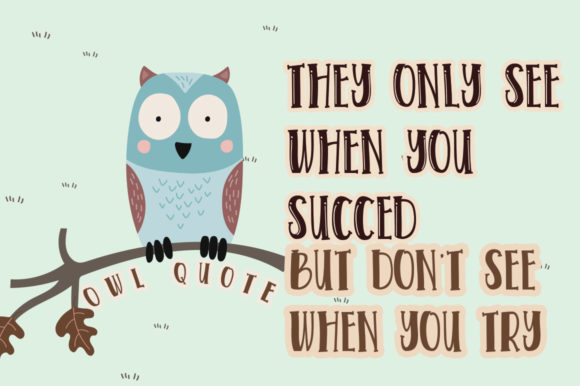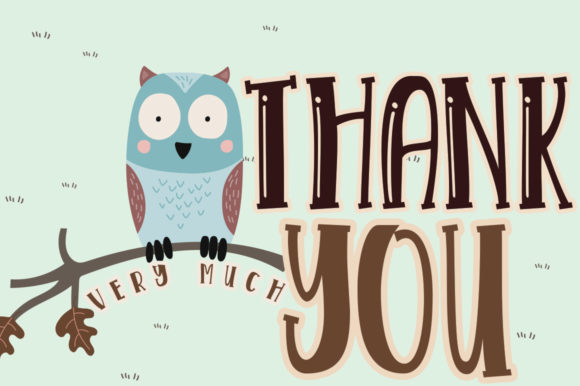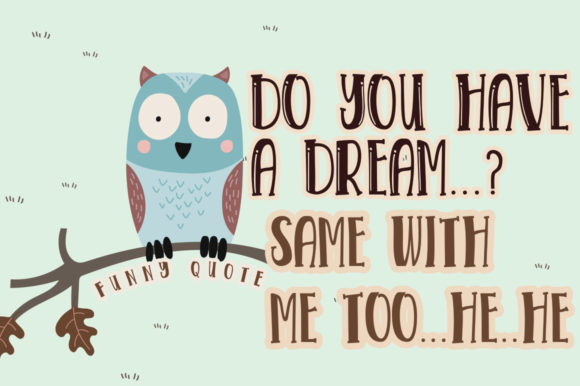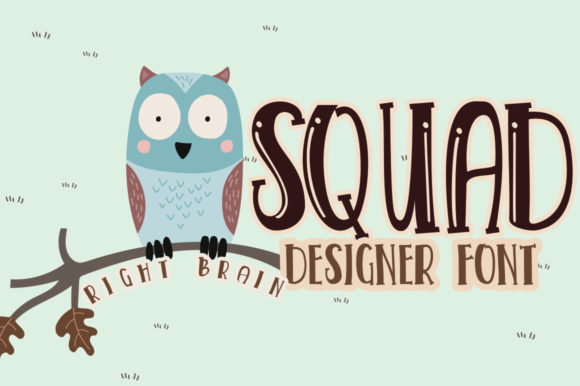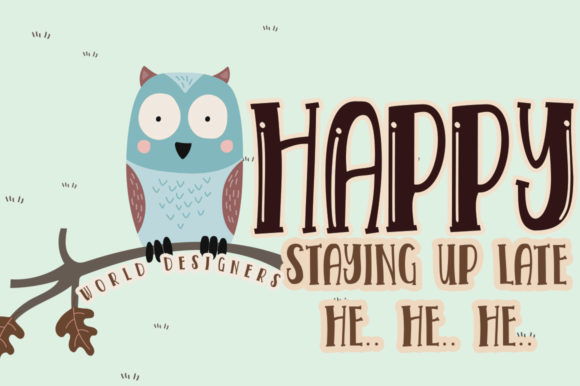
Sleep Owl Font
About Sleep Owl Font
Sleep Owl is a cute and whimsical script with a modern feel. Use it to turn any design project into a true standout.